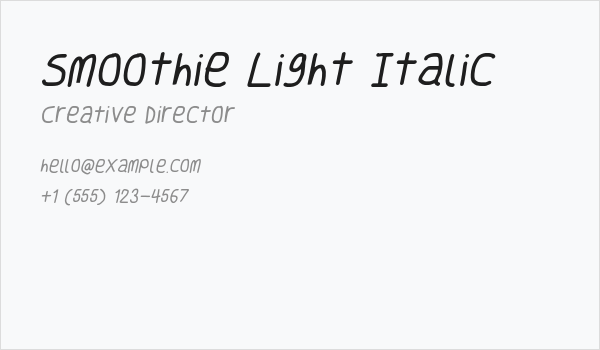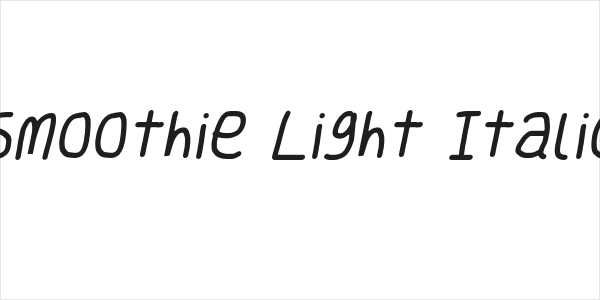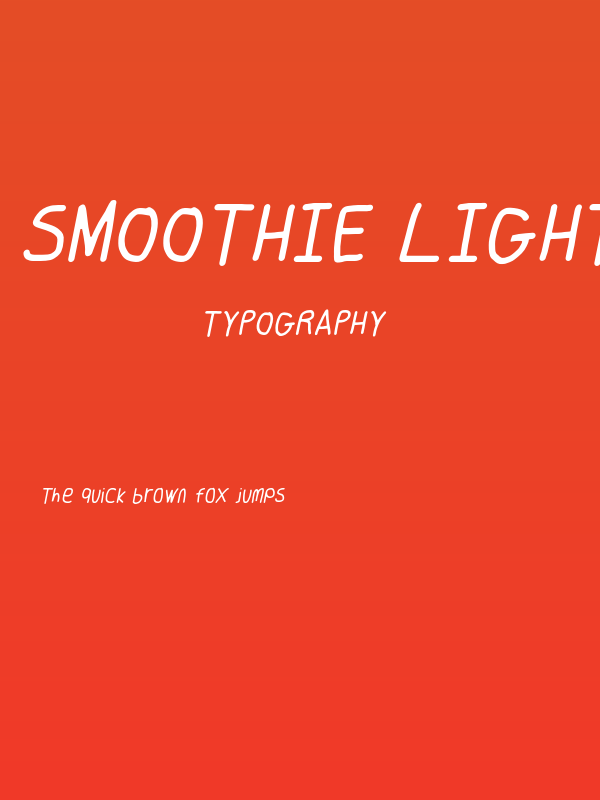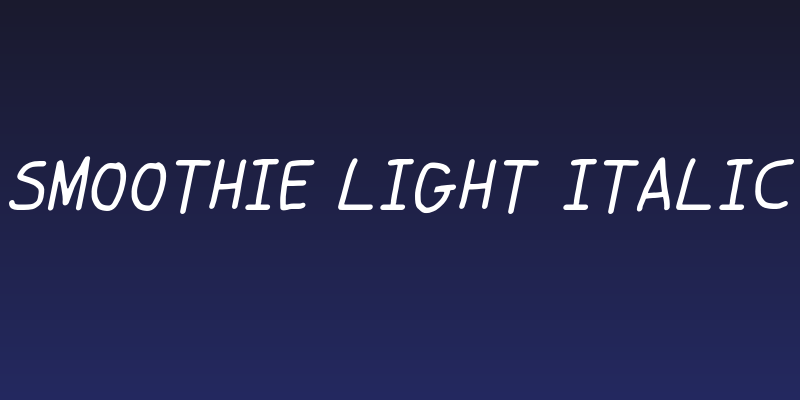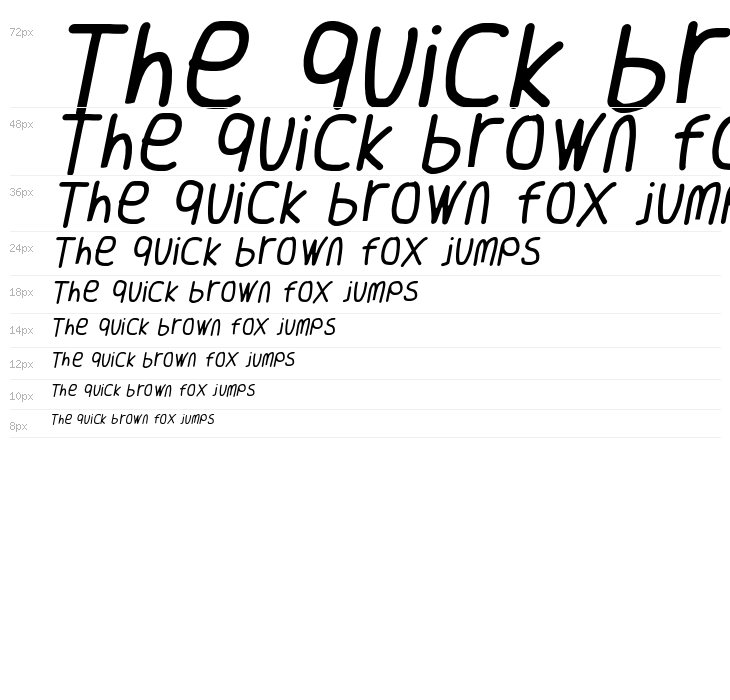
Smoothie Light Italic Font
Smoothie Light Italic Description
This font features a smooth, flowing style with a light and airy feel. The characters are slightly slanted, giving it an italic appearance that adds a sense of movement and elegance. The strokes are consistent in weight, providing a harmonious and balanced look. The rounded edges and gentle curves contribute to its friendly and approachable demeanor. It's well-suited for projects that require a personal touch or a casual, handwritten feel. The font maintains clarity and readability, making it versatile for various design applications.
| Proposed Projects | Ideal for greeting cards, personal branding, casual invitations, and playful logos. |